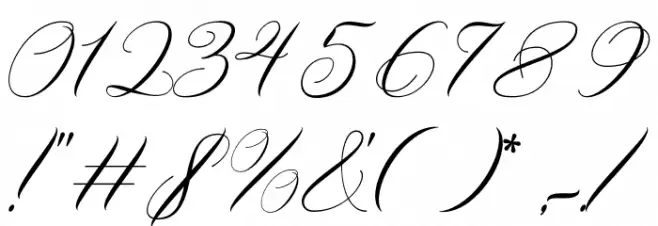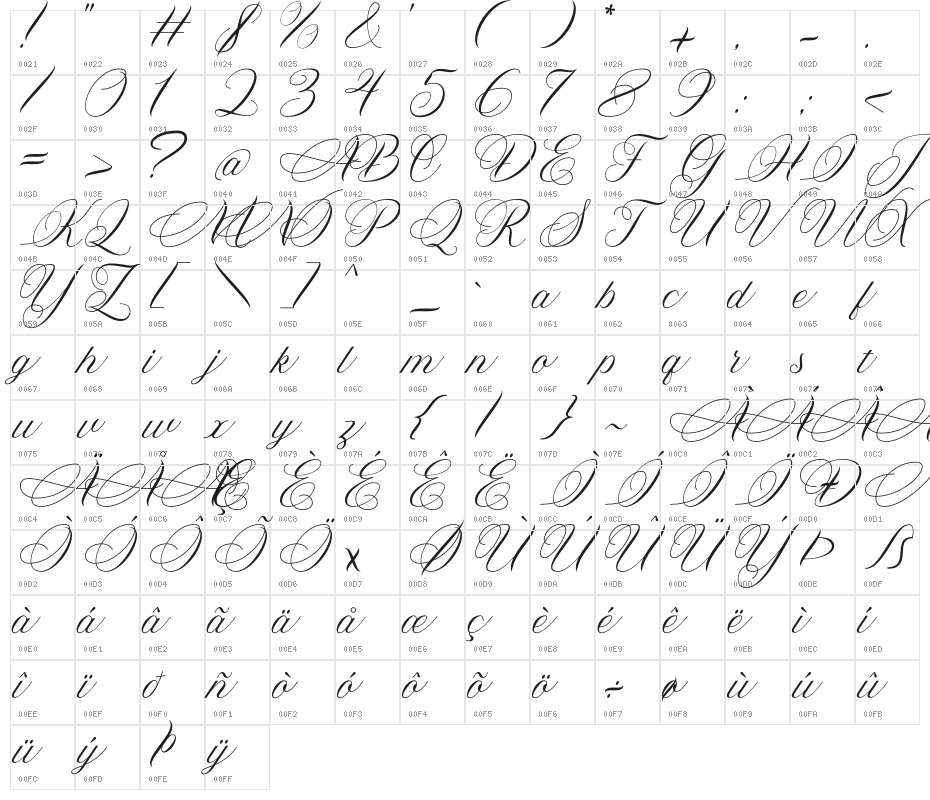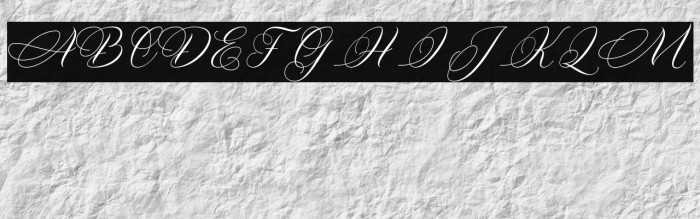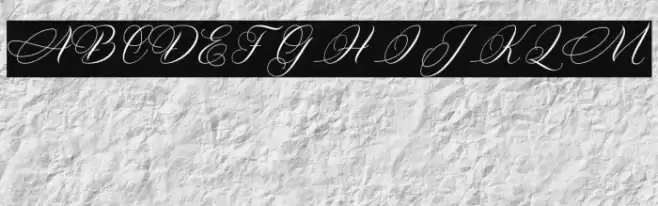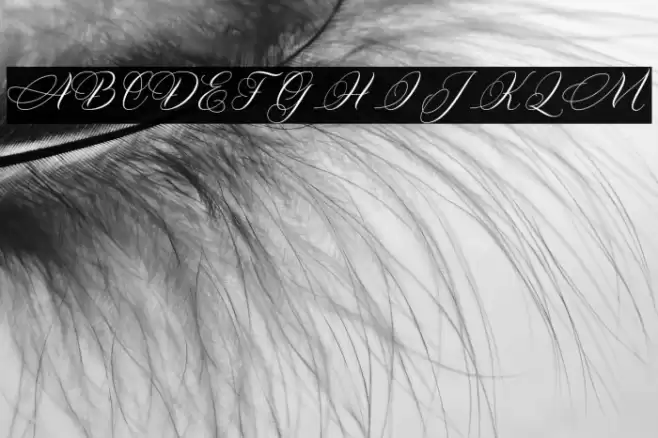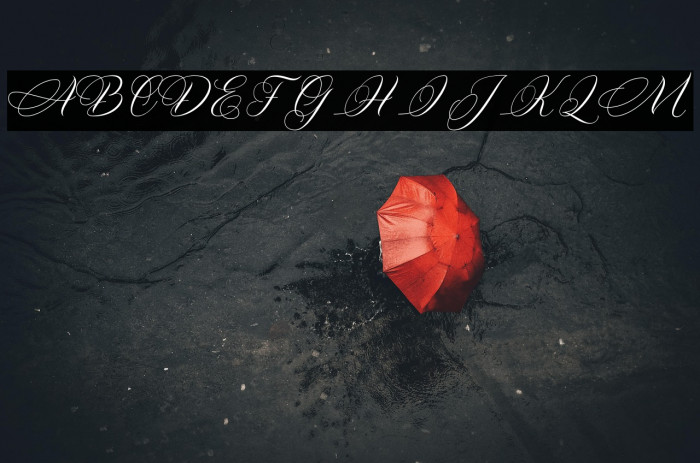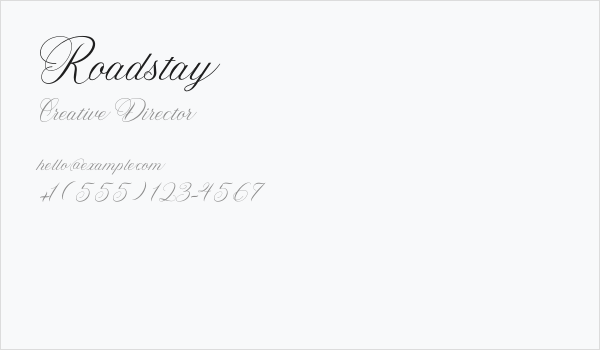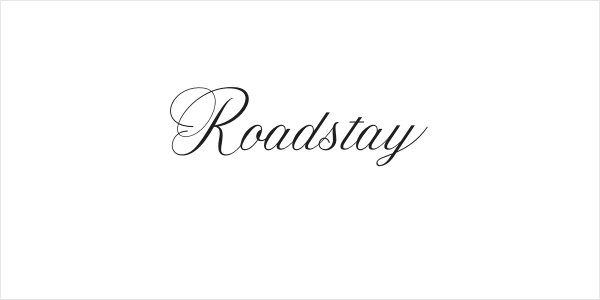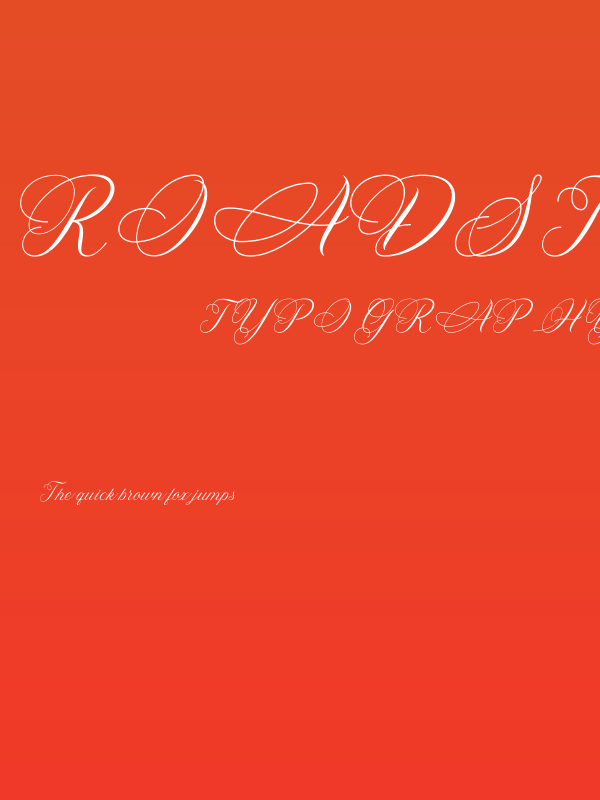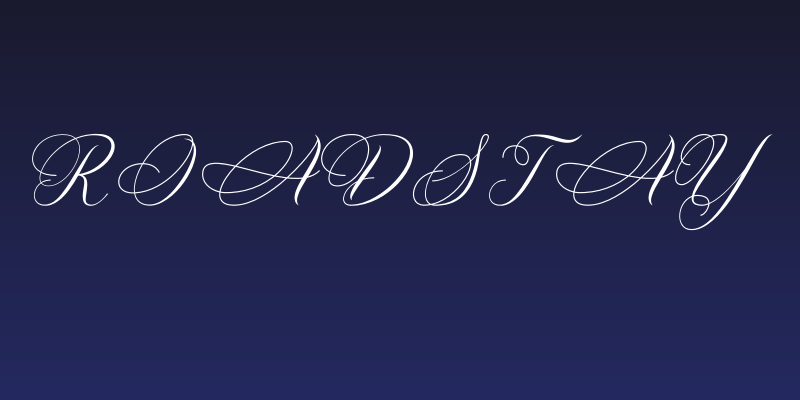
Roadstay Font
This elegant script font features a flowing, cursive style with intricate loops and swashes that give it a sophisticated and artistic appearance. The uppercase letters are particularly ornate, with elaborate flourishes that add a touch of grandeur. The lowercase letters maintain a smooth, connected flow, making it ideal for creating a seamless and harmonious text. The numerals and special characters are designed with the same attention to detail, ensuring consistency throughout. This font exudes a sense of elegance and refinement, making it perfect for formal invitations, branding, and decorative purposes.
| Use Case | Invitations, Branding, Decorative text |
| Proposed Projects | Ideal for wedding invitations, luxury branding, greeting cards, and decorative signage. |